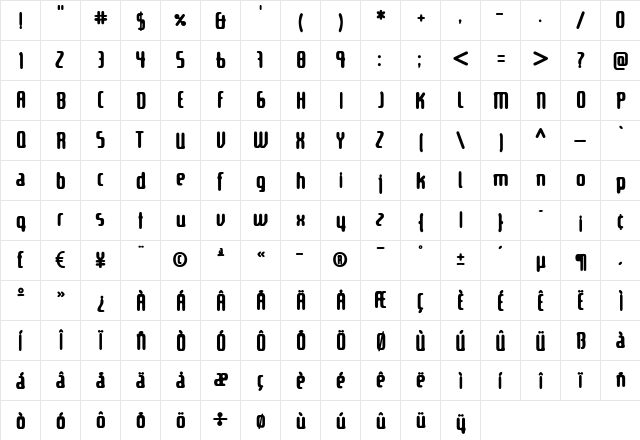
Ultranova Bold
Design Context for Ultranova Typeface
Ultranova offers clean, dependable letterforms without strong stylistic allegiance, making it a practical choice for designers who need flexibility. Its bold stroke weight gives it real presence on the page.